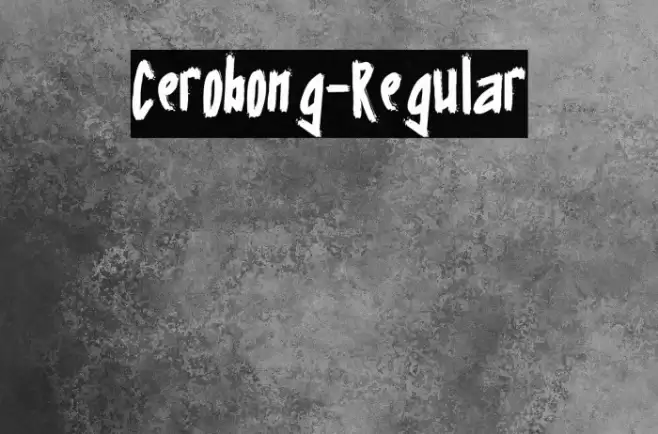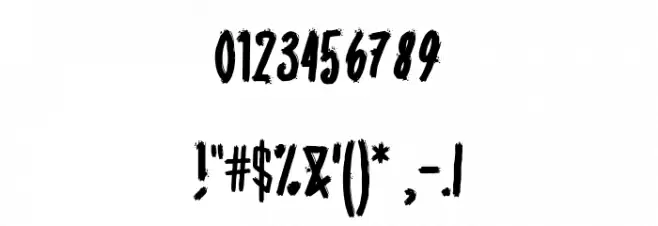
Cerobong-Regular Font
Cerobong-Regular Description
This font features a bold and expressive style with a hand-painted appearance. The strokes are uneven and textured, giving it a dynamic and energetic feel. The uppercase and lowercase letters maintain a consistent style, with some characters exhibiting unique flourishes. The numbers and special characters follow the same aesthetic, ensuring a cohesive look across all glyphs. This font's rough and artistic design makes it stand out, perfect for projects that require a bold statement.
A bold, hand-painted style font with textured strokes and dynamic energy from Uncategorized fonts.
- Proposed Projects: Ideal for posters, album covers, branding materials, and any design that needs a bold, artistic touch.